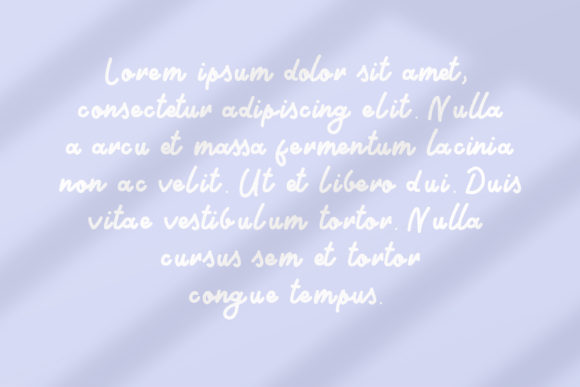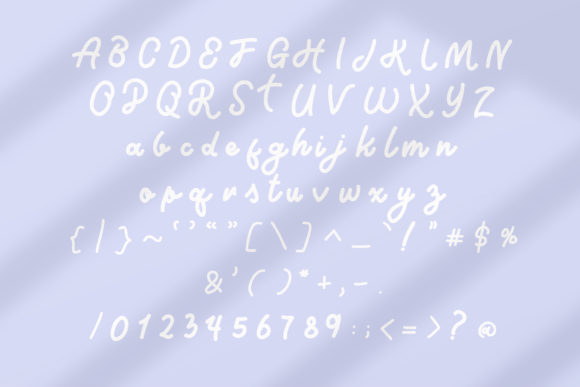
Frytunia Font – Free Download
Introduction to Frytunia Font
Frytunia is a sweet and magical handwritten font, created with the help of a brush pen.
Fall in love with its incredibly versatile style and use it to create gorgeous wedding invitations, beautiful stationary art, eye-catching social media posts, and much more .
Key Features of Frytunia Font